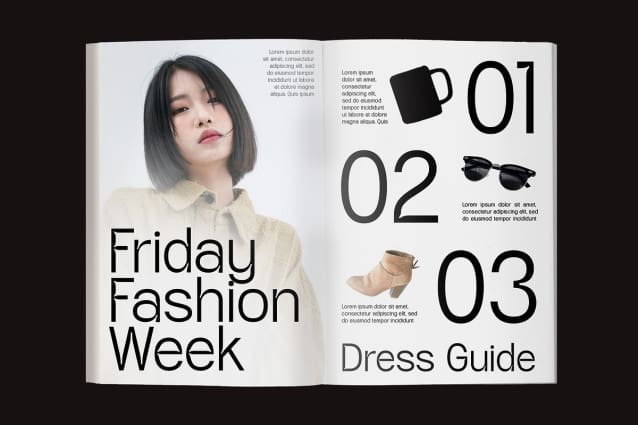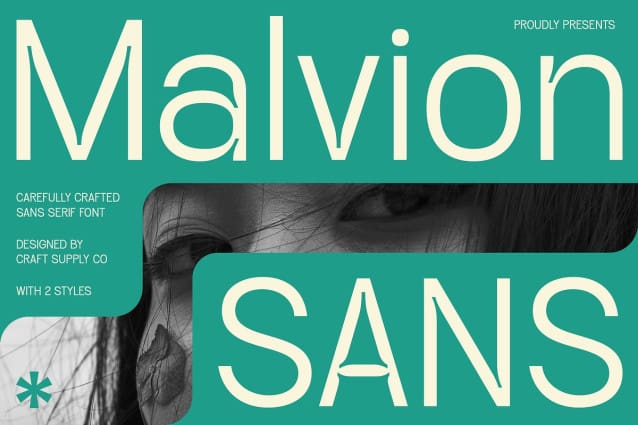
Malvion Font
Malvion Font – Sans Serif Font is a modern sans-serif typeface with inktrap features, showcasing small angular details that stand out at the ends of the letter strokes. These details not only add an appealing aesthetic but also aid in maintaining character clarity at smaller sizes, making it ideal for both digital and print applications.
With its inktrap features and modern design, Malvion Font – Sans Serif Font strikes a perfect blend of form and function. It ensures characters remain clear and legible across various sizes, enhancing readability without compromising on visual appeal.
Malvion Font – Sans Serif Font is versatile and suitable for both digital and print media. Whether used in web design, user interfaces, brochures, or magazines, this font’s angular details and clean lines ensure it delivers a modern and polished look to your projects.
Versatile and dynamic, this sans serif font features inktrap details, adapting seamlessly to various design applications. Its inktrap features and angular details make it stand out, providing a contemporary aesthetic that enhances the overall quality of your designs.